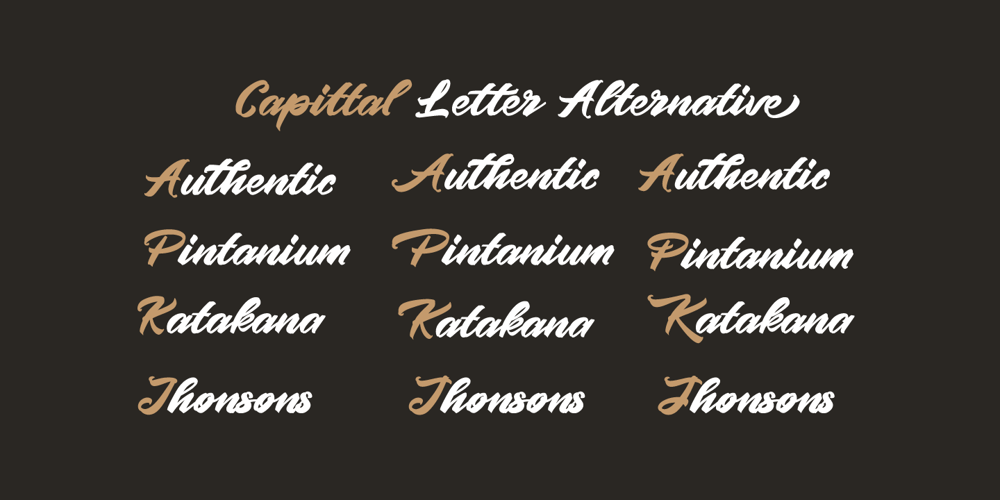
Pintenium Script
Pintenium Script font
Pintenium Script Font Family was designed by Ferry Hadriyan and published by FHFont. Pintenium Script contains 1 styles and family package options. Pintenium is a vintage script with a hand-lettering brush style, and includes several OpenType features. Suitable for design, element design, wedding, event, t-shirt, logo, badges, sticker, and awesome work, and more.